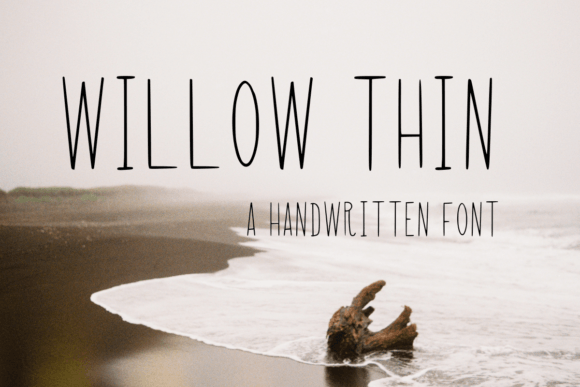
Dive into the world of captivating Scandinavian charm with Willow Thin - an all-caps handwritten font that oozes personality and allure. Its sweeping curves and exaggerated letters evoke the simplistic beauty of Nordic design, lending an air of sophistication to your creative projects. Whether you're a digital designer crafting enchanting logos, a crafter embroidering heartfelt messages, or a passionate presenter captivating audiences, Willow Thin will elevate your creations to new heights.
Step into a world where your words dance with grace and elegance. Crafted with meticulous attention to detail, Willow Thin exudes a timeless appeal that transcends trends. Its clean lines and minimalist aesthetic make it the perfect choice for adding a touch of understated luxury to your digital designs, branding materials, and social media posts. Each letter is meticulously crafted to ensure readability and visual appeal, ensuring that your message shines through with clarity.
With Willow Thin, you embark on a journey through the enchanting forests of Scandinavia, where nature's beauty unfolds in every stroke. From heartfelt greeting cards that convey your deepest sentiments to stunning wedding invitations that capture the magic of your special day, Willow Thin weaves a tapestry of emotions that resonate with your audience. Create unforgettable logos that stand out from the crowd, leaving a lasting impression that reflects your brand's unique identity.
Whether you're a seasoned graphic designer or just starting your creative journey, Willow Thin is your steadfast companion. Its user-friendly format and extensive character set empower you to unleash your creativity effortlessly. Personalize your digital designs with ease, adding a flourish of handwritten charm to your blog posts, website content, and social media graphics.